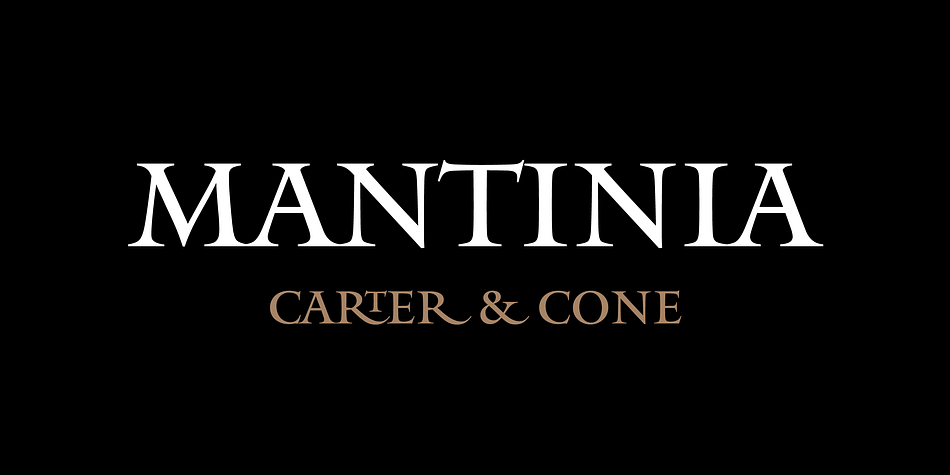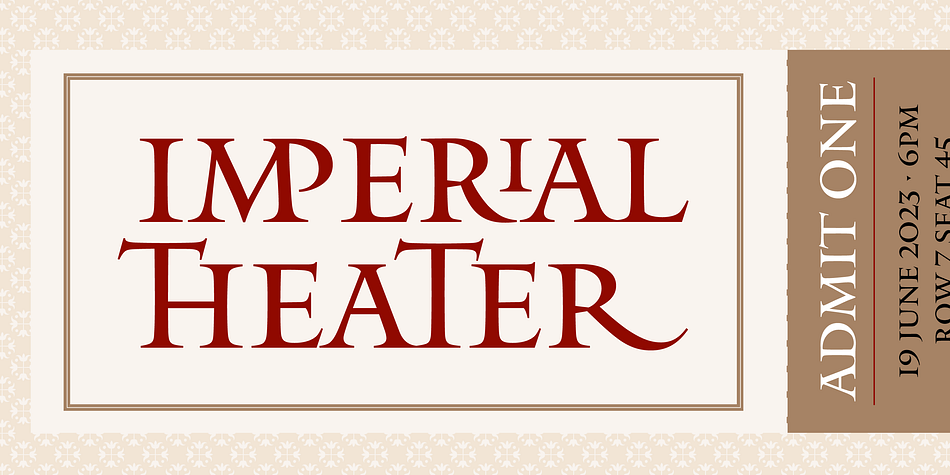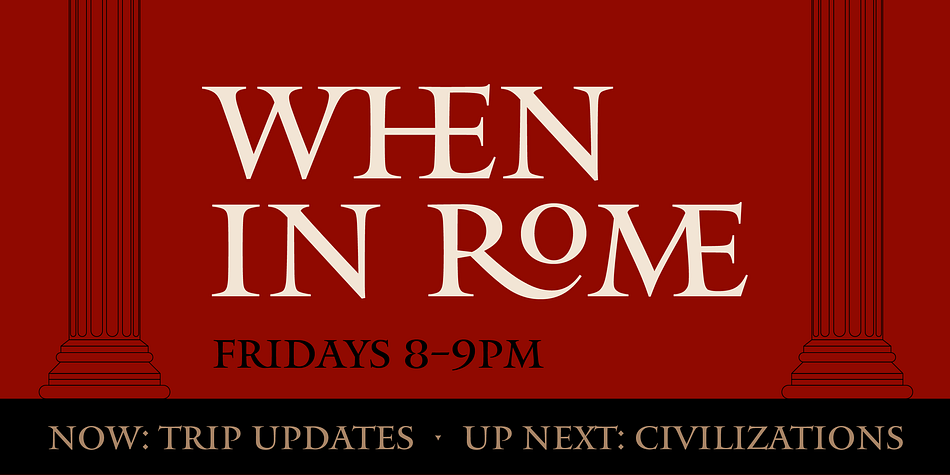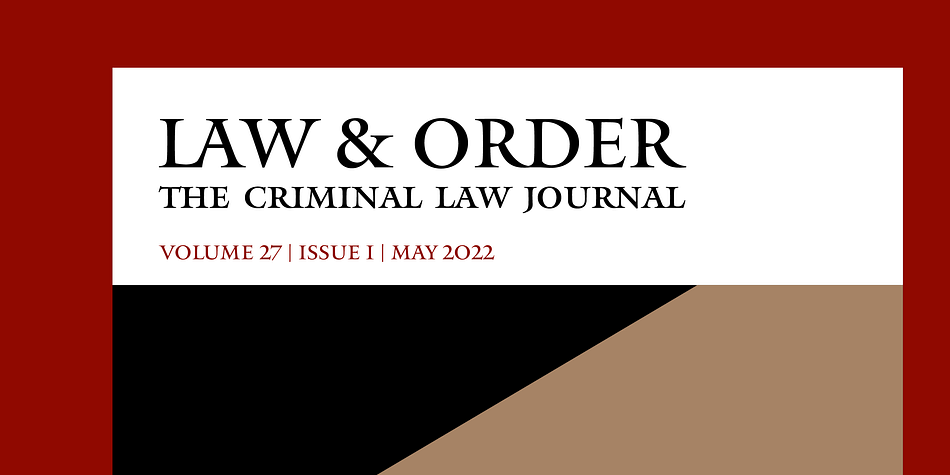
Designed by Matthew Carter, Mantinia CC is a display serif font family published by Carter & Cone.
For Mantinia’s design, Matthew Carter examined the work of Andrea Mantegna. This artist of the Italian Renaissance was one of the first people to study the monumental lettering of imperial Rome, reviving it in his painted and carved lettering. Paying homage to its inscriptional roots, Carter outfitted Mantinia with several surprising ligatures and a few tall capitals. The face also includes two full complements of small capitals—one set sits on the baseline, the other consists of raised versions—that can be tucked underneath the arms or above the legs of neighboring letters.